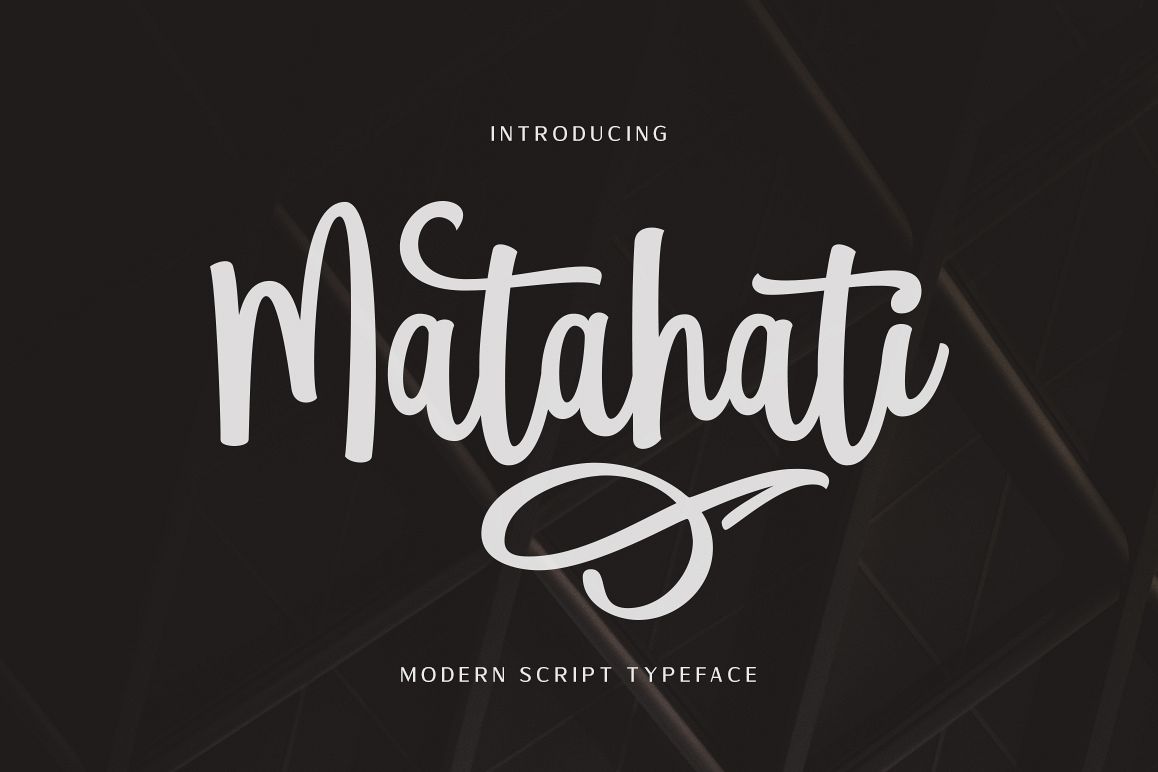
Matahati
Matahati Regular
Matahati Slant
Matahati Swash
Matahati is a script font that is created based on the modern calligraphic style which is reprocessed by combining passion and deep feelings to create beautiful artwork and memorable.
Besides bringing basic characters are charming, Matahati also offers OpenType features that will facilitate the work of typography and graphic design. This font also presents the beautiful ornaments on Matahati Swash, so you will be easier to mix and match your design. Matahati is suitable for the design of posters, invitations, quotes, headlines etc.
• Standard Ligatures
• Terminal Swashes
• Regular Swashes
• Stylistic Set
• PUA Unicode